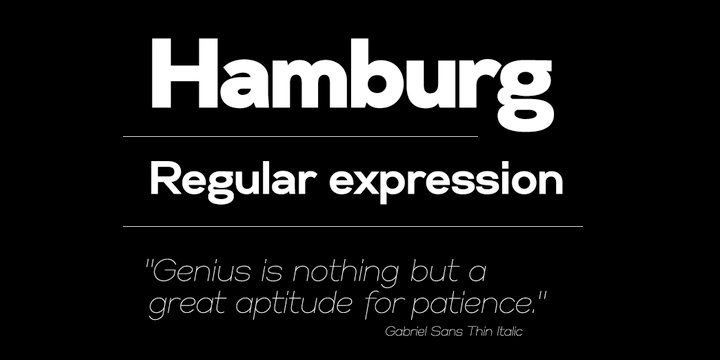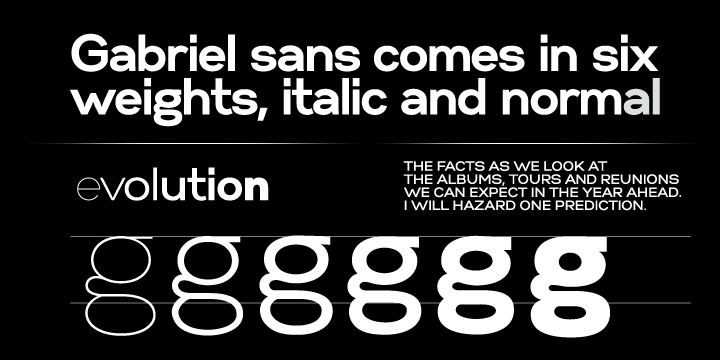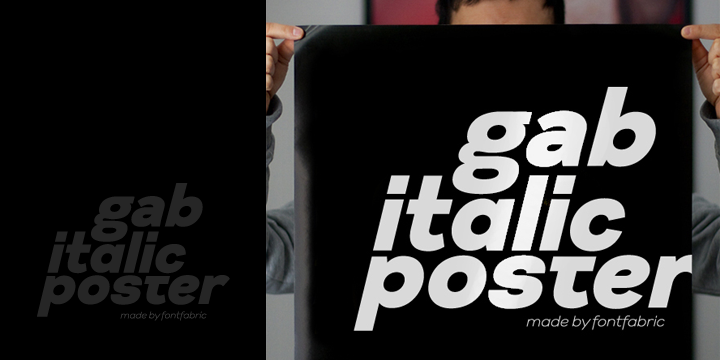
Gabriel Sans Family (24 fonts)
From Fontfabric
It is professional and equally suited to your business or your personal lifestyle; it can be used in logotypes as well as in typeset text. It’s an all-purpose font offering the best of both worlds!